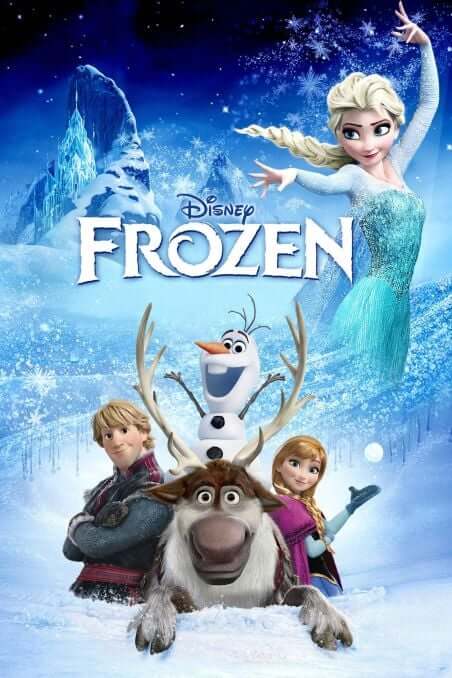
Frozen Font
Frozen Ice Kingdom Bold by Kustren is a free font based on the frozen movie title logo from the movie Frozen.
The Golden Globe Awarded "Frozen" is a 2013 American 3D computer-animated musical fantasy film produced by Walt Disney Animation Studios. It is released by Walt Disney Pictures, which follows the story of Princess Elsa and her younger sister Anna, who embark on an adventure to save their kingdom from eternal winter. The film became a massive commercial success and spawned numerous merchandise, theme park attractions, and a successful Broadway musical adaptation. The font is available in all caps, licenced as free for personal use and is free to download. Click the above link to download frozen font.